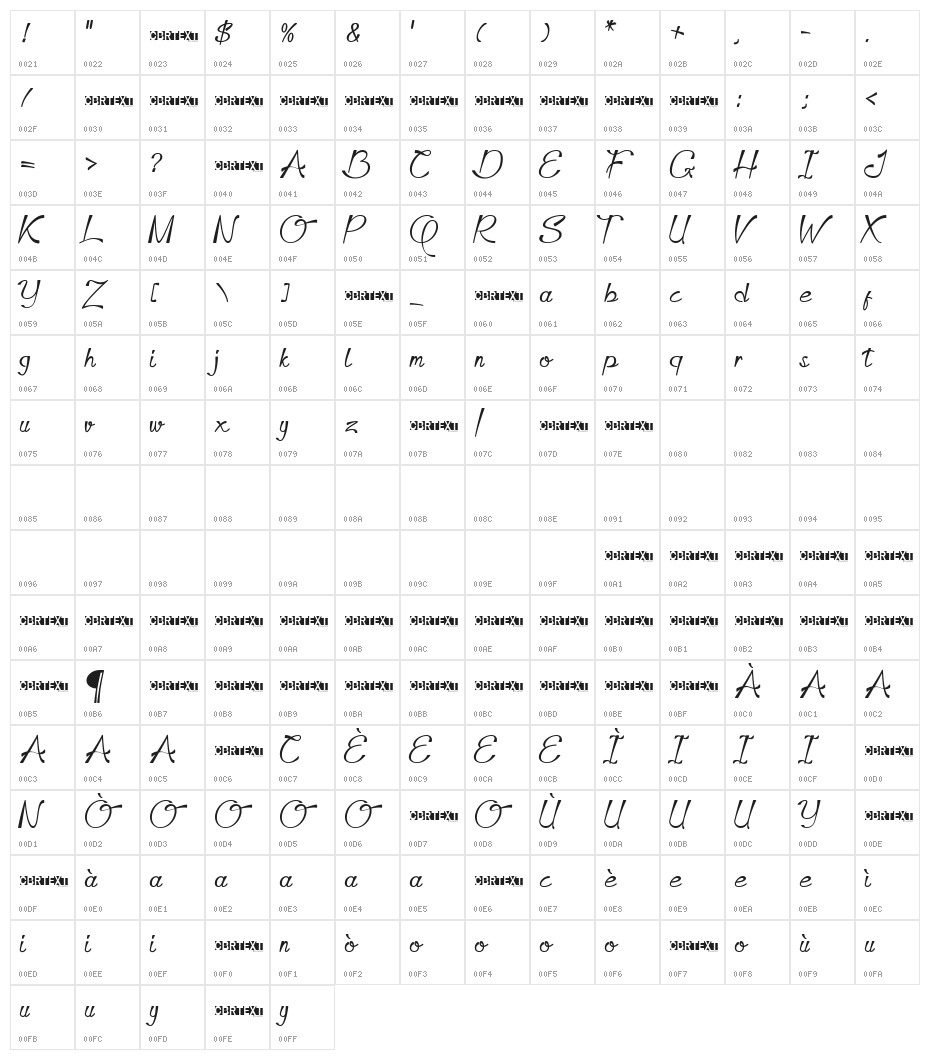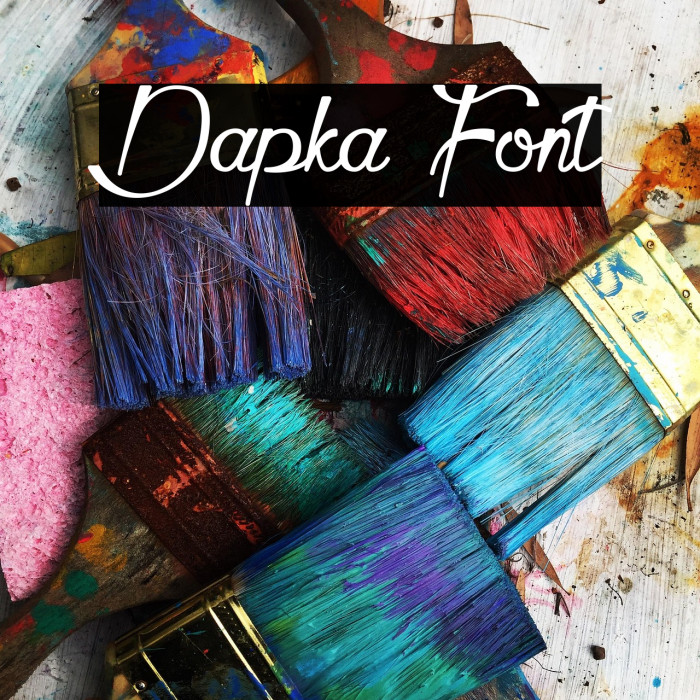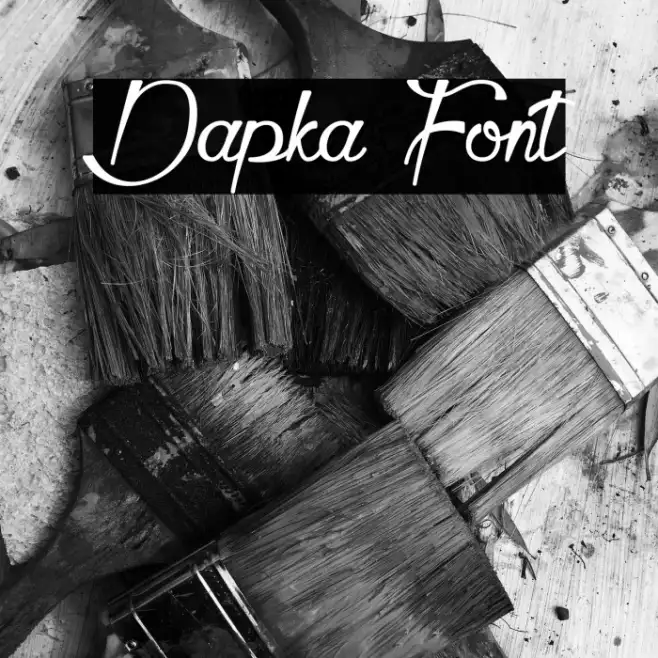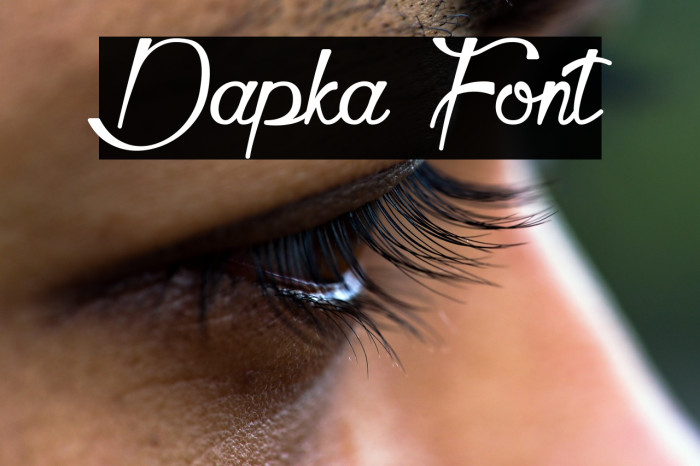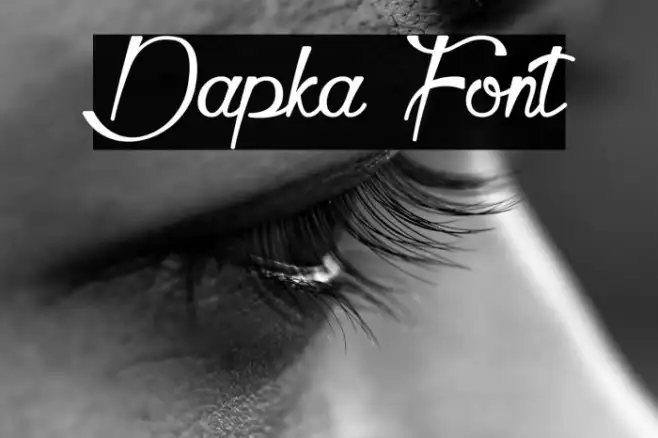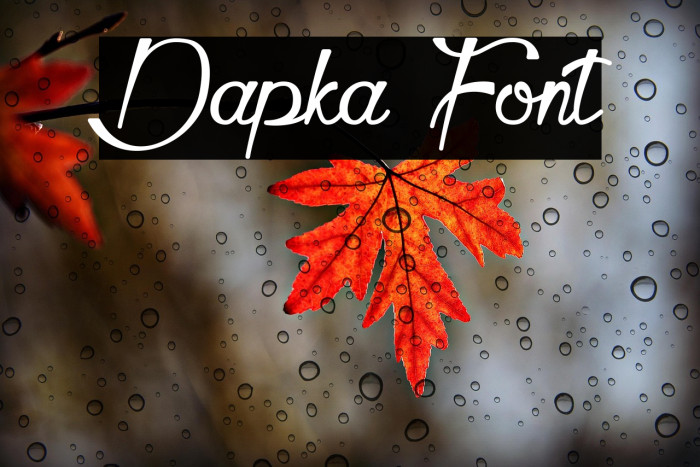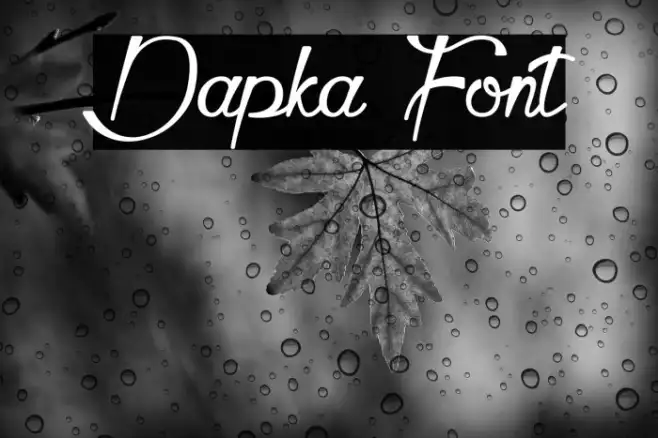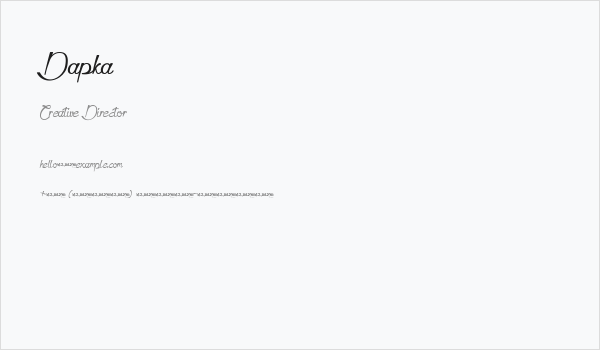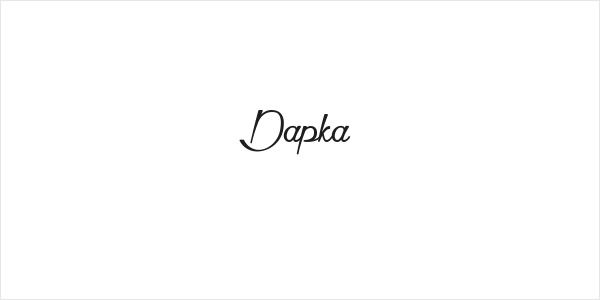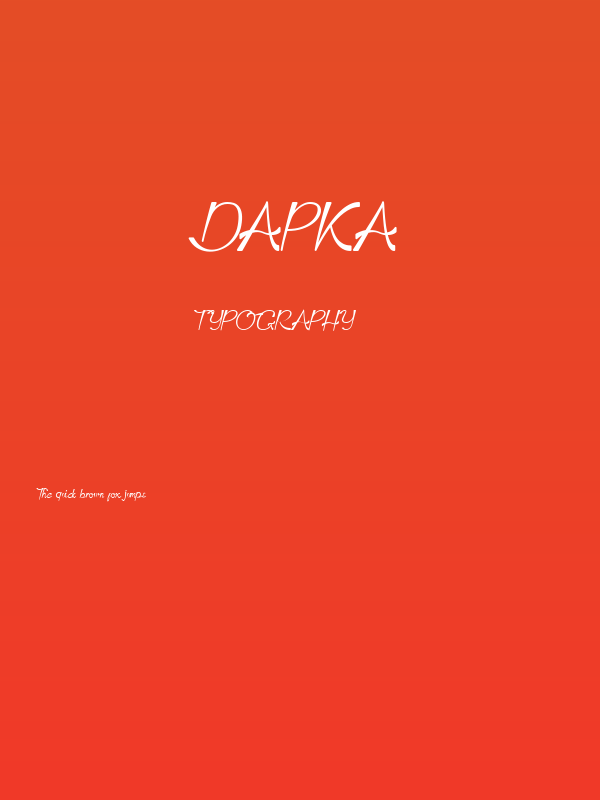
Dapka Font
Dapka Description
This font exhibits a dynamic and fluid script style, characterized by its elegant and flowing letterforms. The uppercase letters are bold and expressive, with sweeping curves and distinctive flourishes that add a sense of movement and grace. The lowercase letters maintain a consistent rhythm, featuring smooth connections and a slightly slanted orientation that enhances readability. The numerals and special characters are crafted with the same attention to detail, ensuring a cohesive appearance across all glyphs. This font's overall aesthetic is both sophisticated and approachable, making it suitable for a variety of creative applications.
| Proposed Projects | Ideal for wedding invitations, branding projects, greeting cards, and elegant packaging designs. |